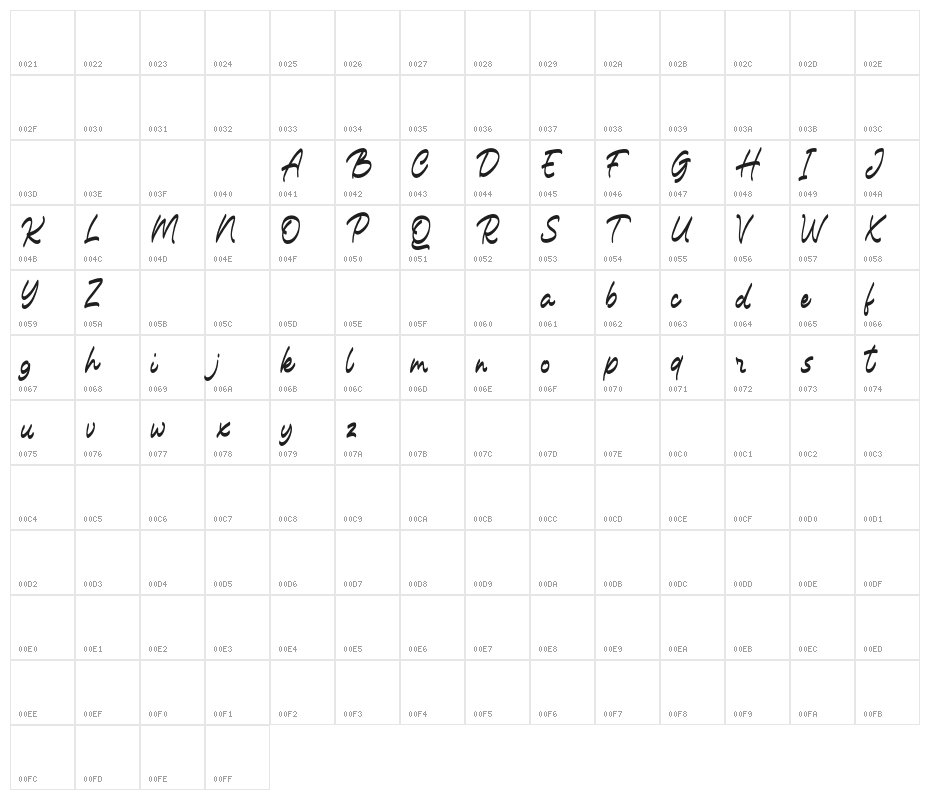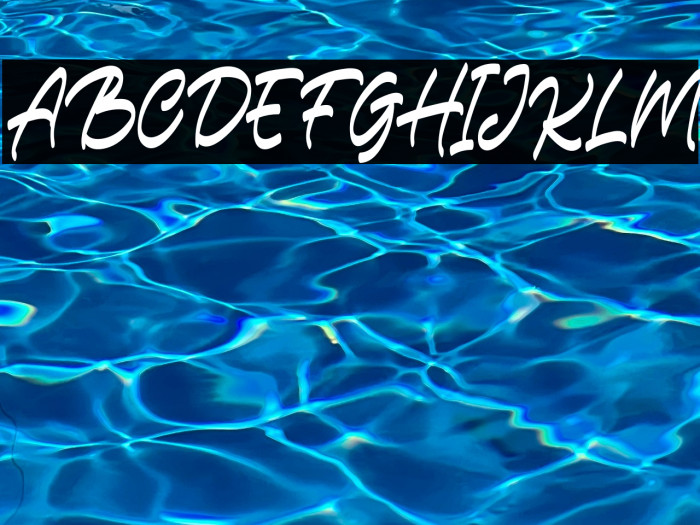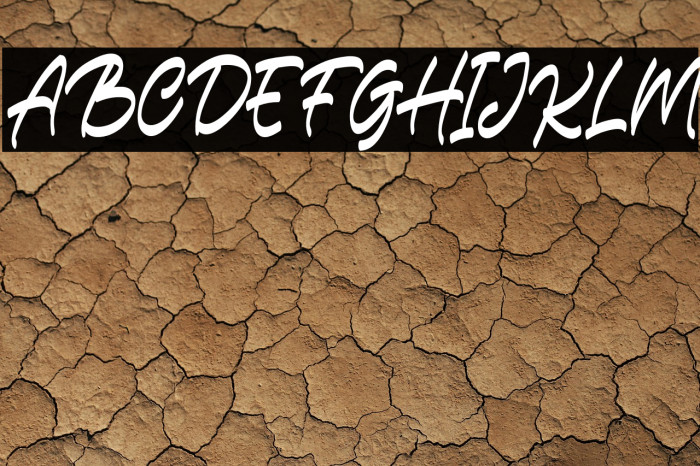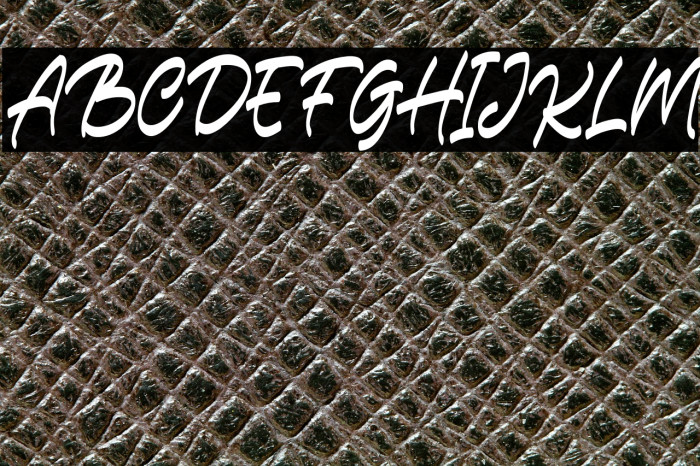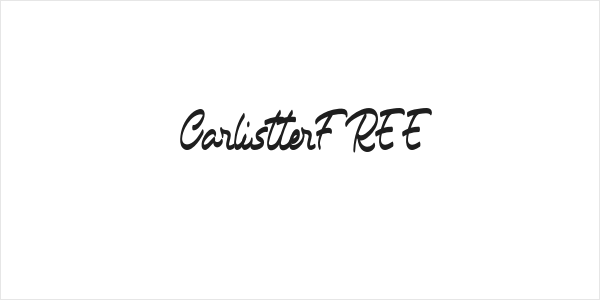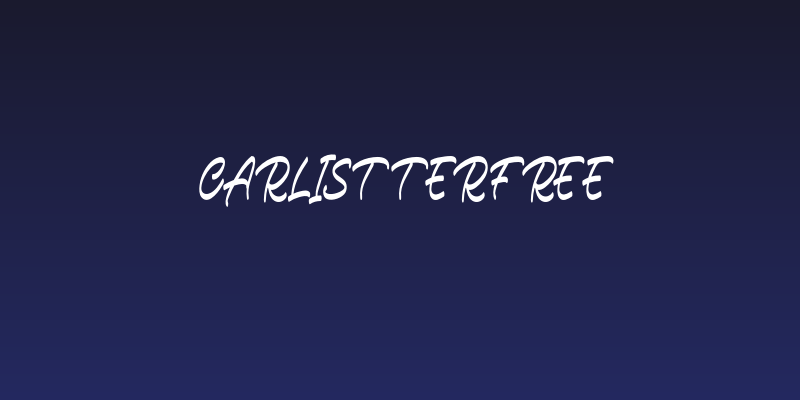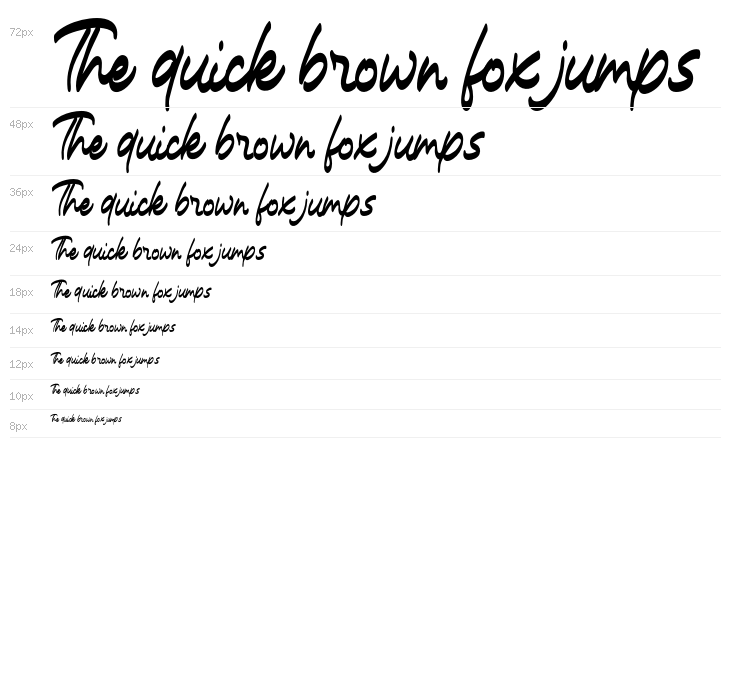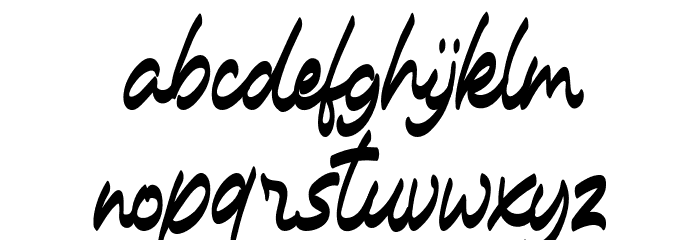
CarlistterFREE Font
CarlistterFREE Description
This font features a dynamic and flowing script style, characterized by its bold and expressive strokes. The uppercase letters are particularly striking, with a sense of movement and flair that suggests a handwritten quality. The lowercase letters maintain this fluidity, offering a consistent and cohesive look across the alphabet. The numbers and special characters are designed to match the overall style, ensuring versatility in various applications. The font's energetic and artistic appearance makes it suitable for projects that require a personal touch or a sense of elegance.